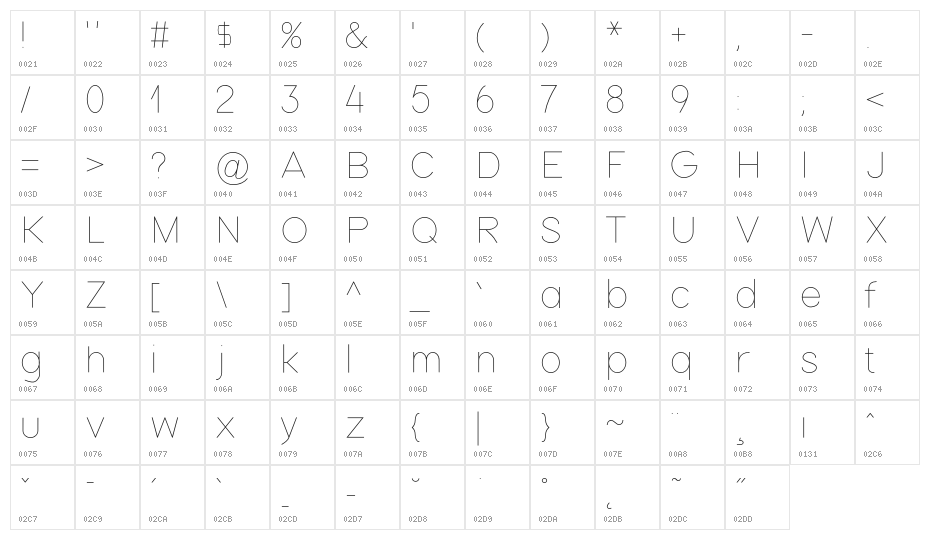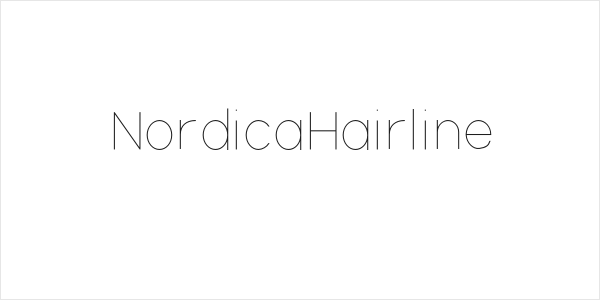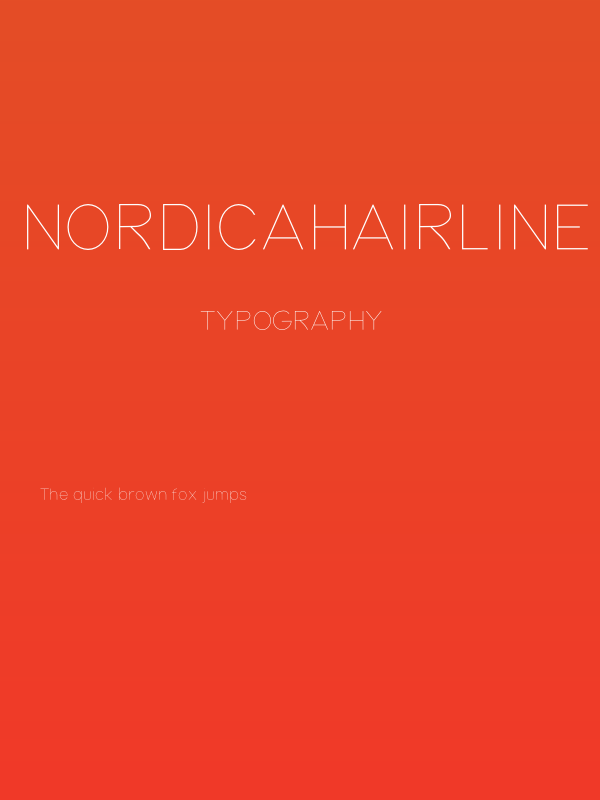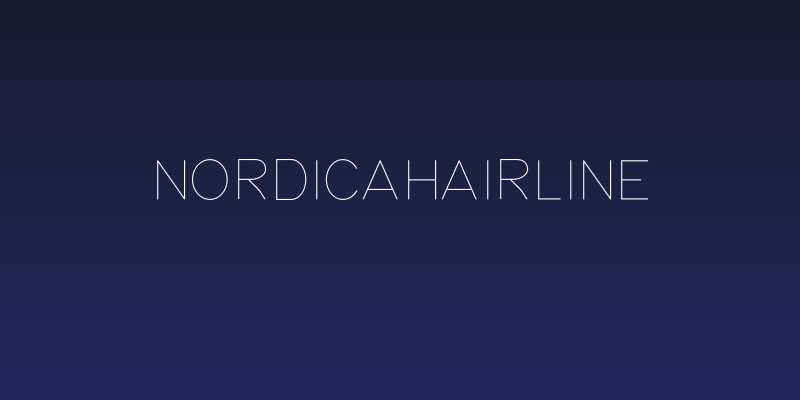
NordicaHairline Font
NordicaHairline Description
This font features a sleek and minimalistic design with ultra-thin strokes, creating an airy and modern aesthetic. The characters are crafted with precision, offering a clean and elegant appearance. The uppercase and lowercase letters maintain a consistent style, with rounded edges and a geometric influence. The numerals and special characters are equally refined, contributing to the font's cohesive look. This font is ideal for projects that require a sophisticated and contemporary touch, where readability and style are paramount.
| Proposed Projects | Ideal for high-end branding, minimalist posters, modern websites, and elegant invitations. |